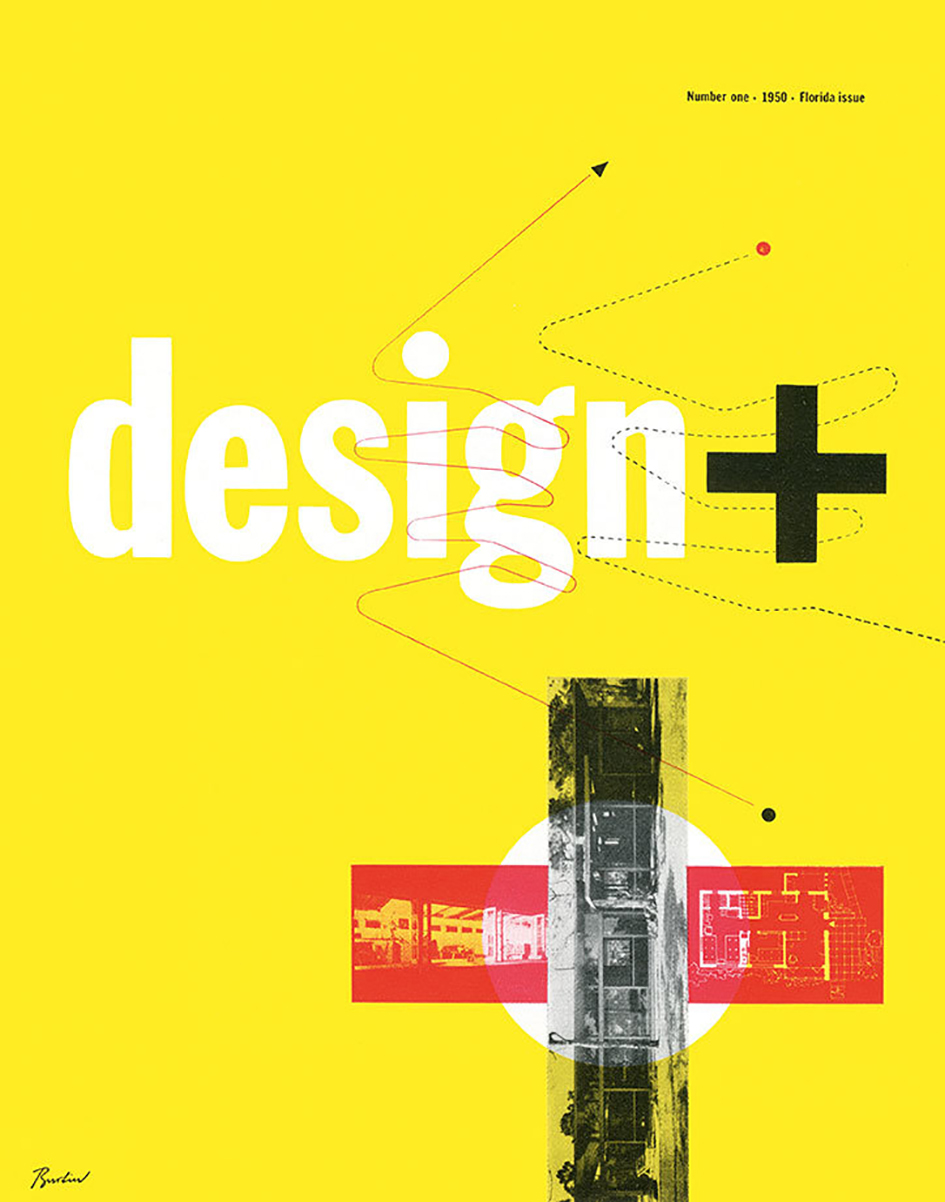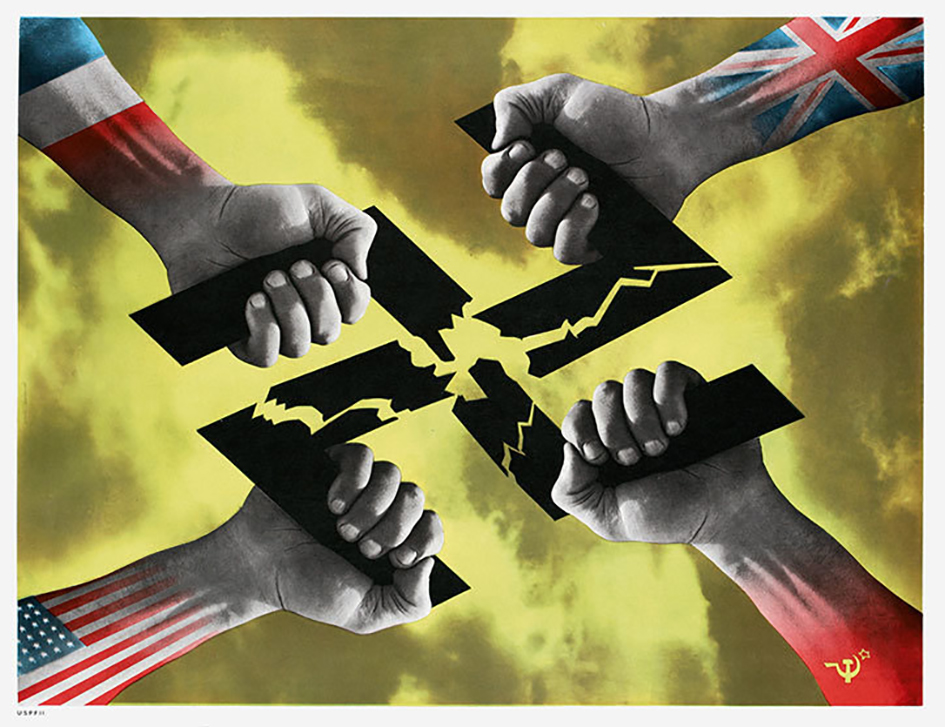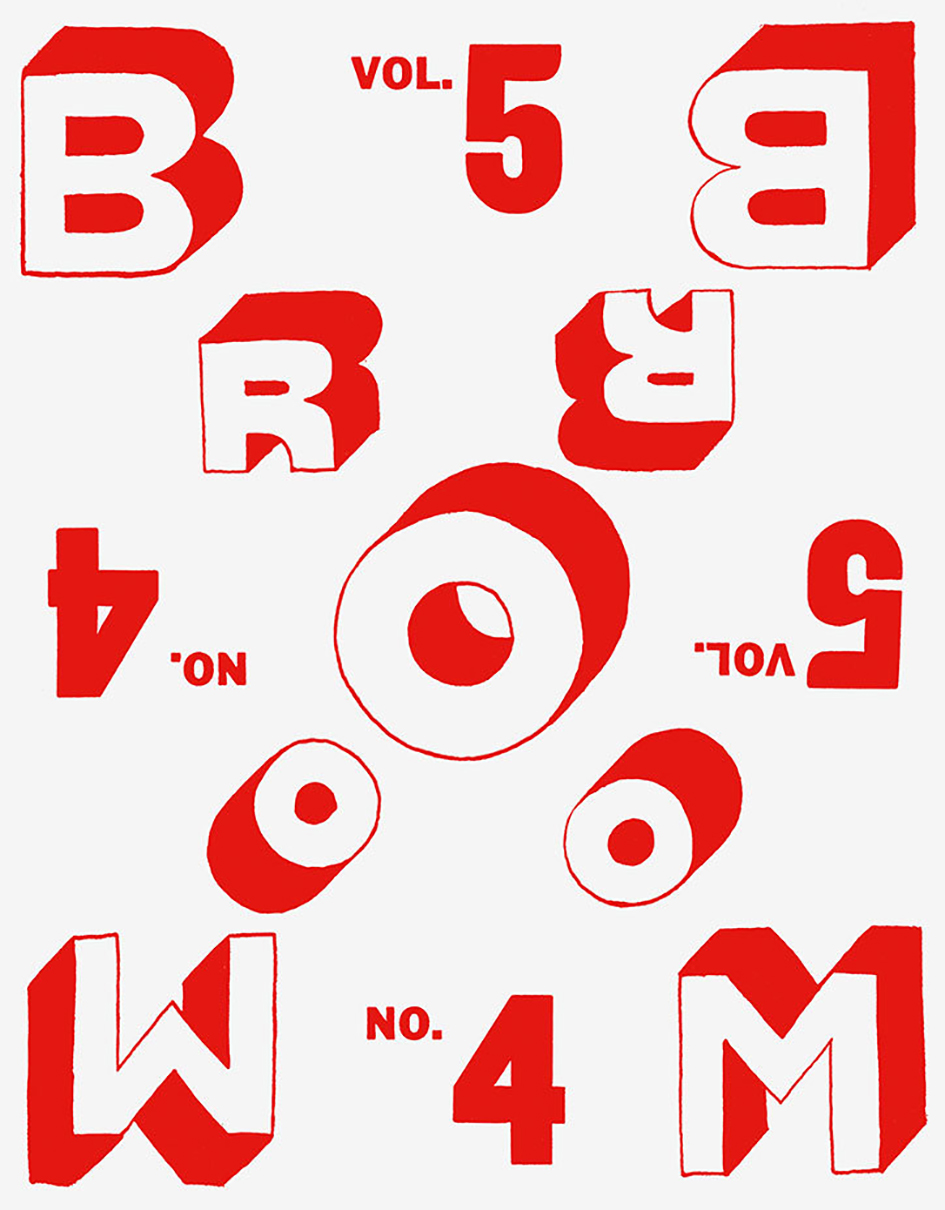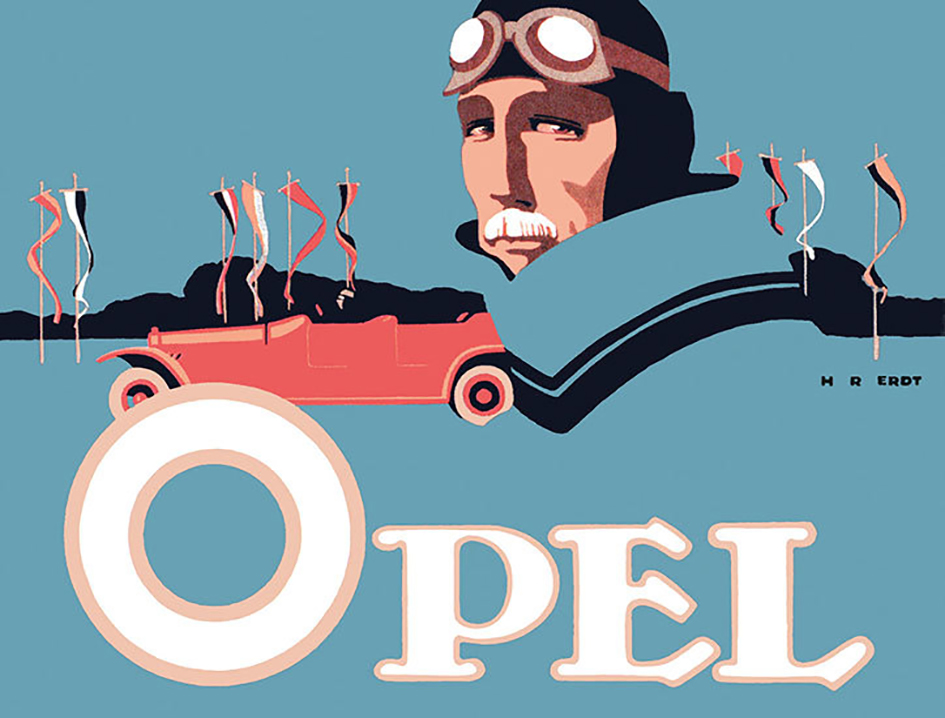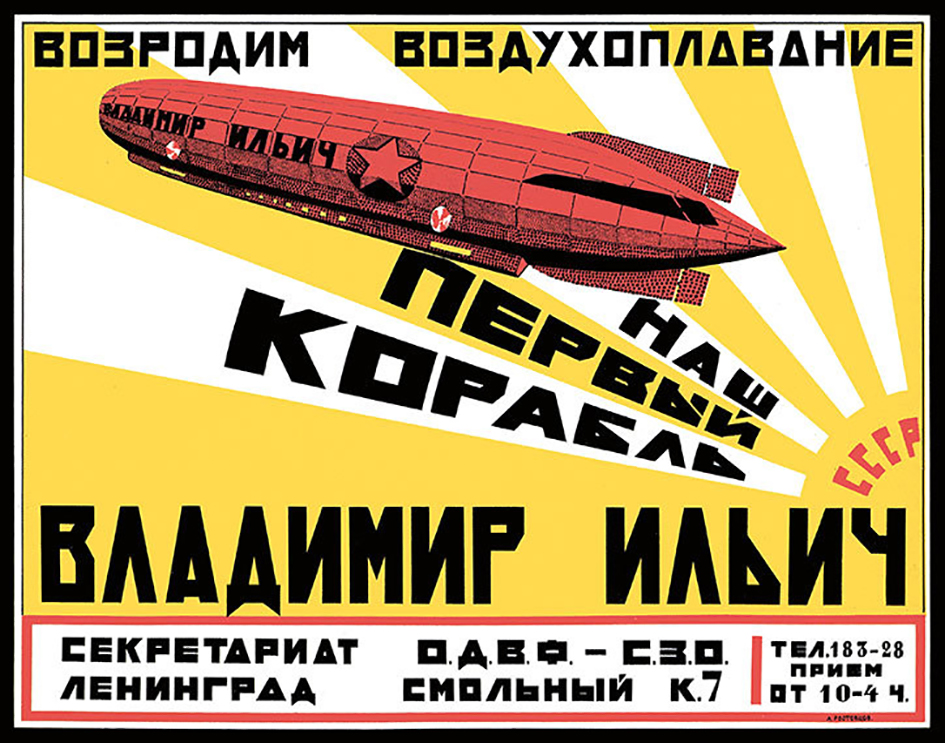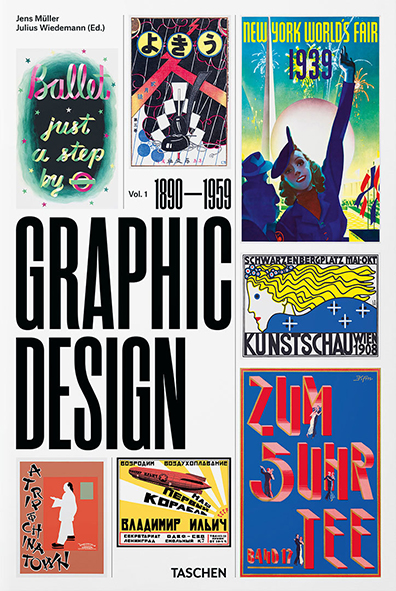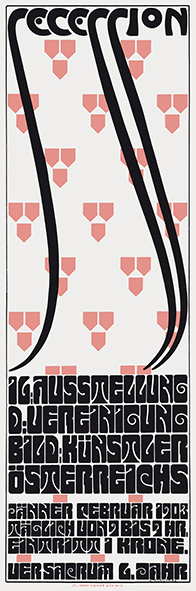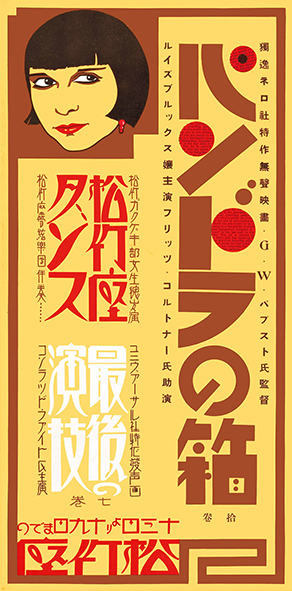
Τhe voluminous history of graphic design is yours to own
Taschen editions published a new rich volume on graphic design and what made it what it is today. “History is a complex business” they explain.
“The History of Graphic Design 1890–1959” offers a comprehensive history of graphic design from the end of the 19th century to the remains of World War II. With his sweeping knowledge of the field, author Jens Müller curates the standout designs for each year alongside a running sequence of design milestones.
The tome traces the evolution of this creative field from its beginning as poster design to its further development into advertising, corporate identity, packaging, and editorial design.
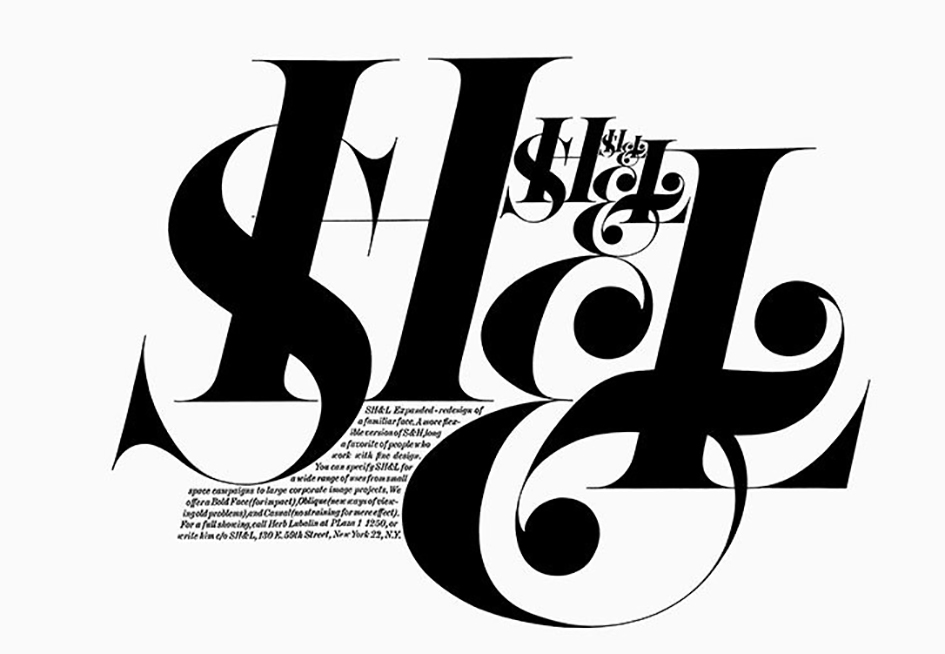
Organized chronologically, the volume features over 2,500 seminal designs from all over the world, 71 of which are profiled in detail besides 61 leaders in the field, including Alphonse Mucha (chocolate advertisements), Edward Johnston (London Underground logo and typeface), El Lissitzky (constructivist graphics), Herbert Matter (photomontage travel posters from Switzerland), Saul Bass (animated opening titles), and A. M. Cassandre (art deco posters).
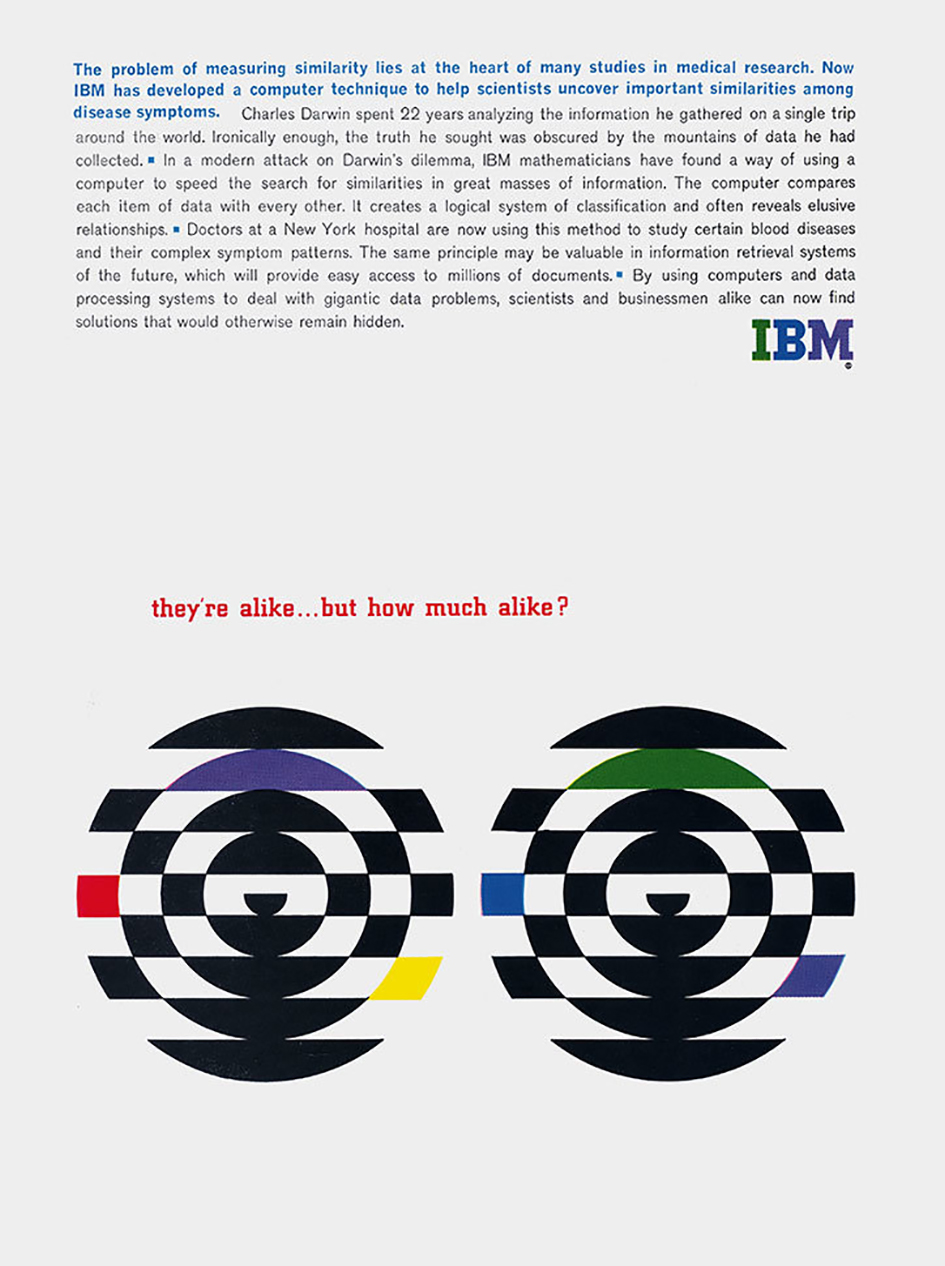
Meanwhile, in his introductory essay, David Jury situates graphic design from its point of origin in early printing, engraving, and lithography to striking creative developments in the 19th century. Each consecutive decade is then prefaced by a succinct overview as well as a stunning visual timeline, offering a vivid display of the variety of graphic production in each decade as well as the global landscape which it at once described and defined.
As we move on from and reflect upon the 20th century, this staggering collection represents the foundations of what would influence some of the fastest changing creative fields, and a long-overdue recognition of the enormous contribution graphic design has made to economics, politics, social causes, arts, media, and the way we see the world.
“Fortunes boom and bust, empires wax and wane, and change—whether social, political, or technological—has its winners, its losers, its advocates, and its enemies. Through all the turbulent passage of time, graphic design—with its vivid, neat synthesis of image and idea—has distilled the spirit of each age” notes Taschen.
Authored by Jens Müller and edited by Julius Wiedemann the publication chronicles the evolution of graphic design from 1890 to 1959, covering 70 years of artistic and commercial output, featuring year-by-year spreads, detailed timelines and profiles of the most important designers of each era visual history of graphic design through 480-pages and hundreds of illustrations.
This is the first part in the series with a second volume which will cover the period from 1960 to today already in preparation.